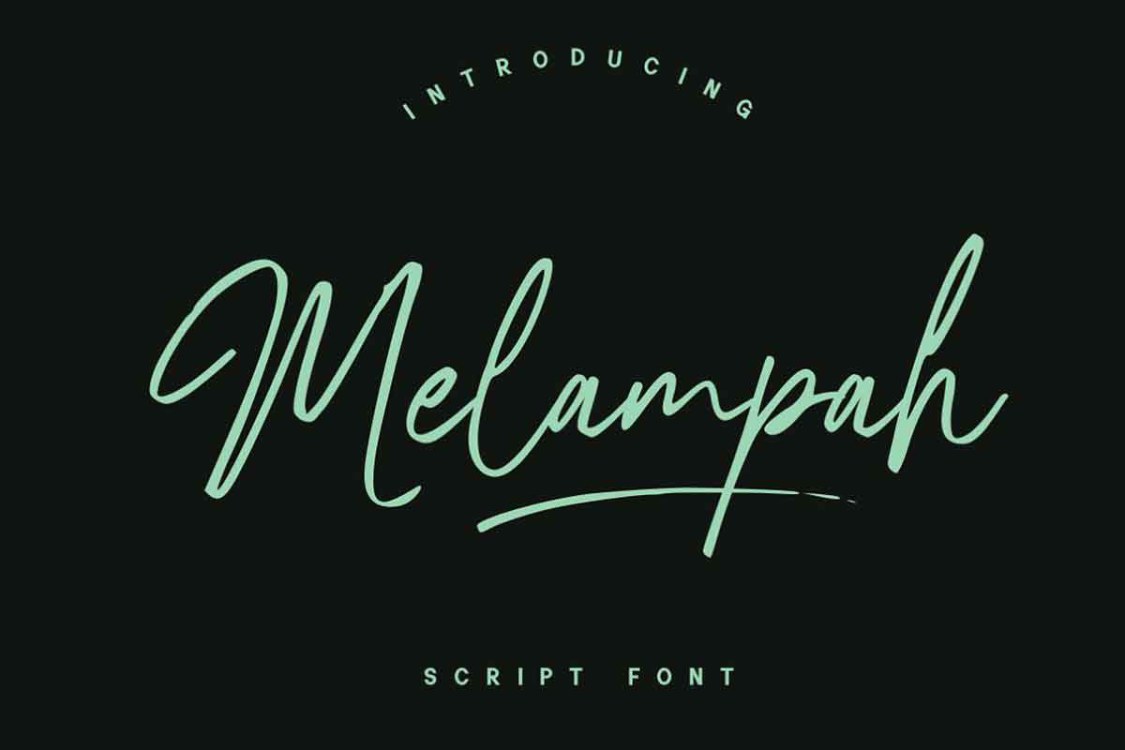
Melampah – Script Font
Melampah
Script Font
Where Melampah – Script Font works best
Melampah – Script Font brings a personal, handwritten warmth to invitations, menus and place cards.
Craft brands — coffee, cosmetics, bakery — use scripts like Melampah – Script Font for signature-style logos and labels.
Pair Melampah – Script Font with a plain sans for quotes, stories and Pinterest pins that feel handmade.
What is Melampah – Script Font good for?
Melampah – Script Font is a Script And Handwritten typeface tagged Handwritten, Melampah Script Font, Professional, Script. It works well for headlines, logos, posters, social media graphics and branding projects that need a distinctive script and handwritten look.